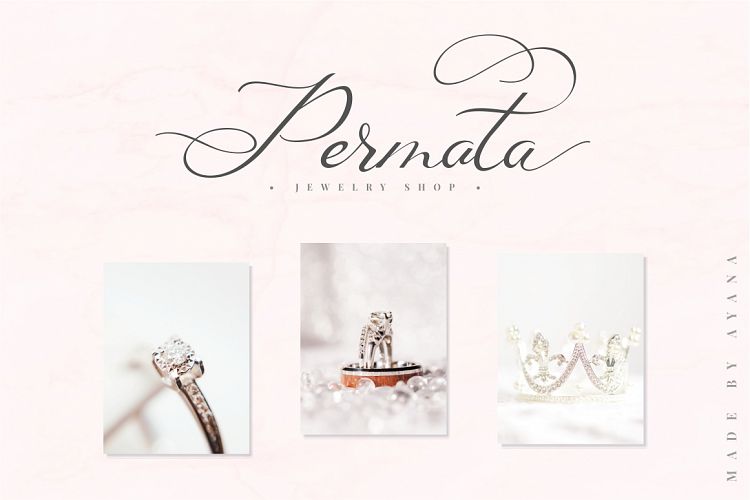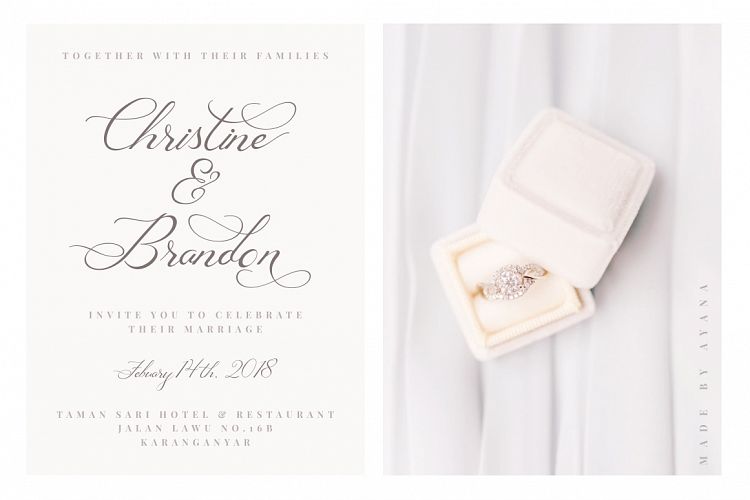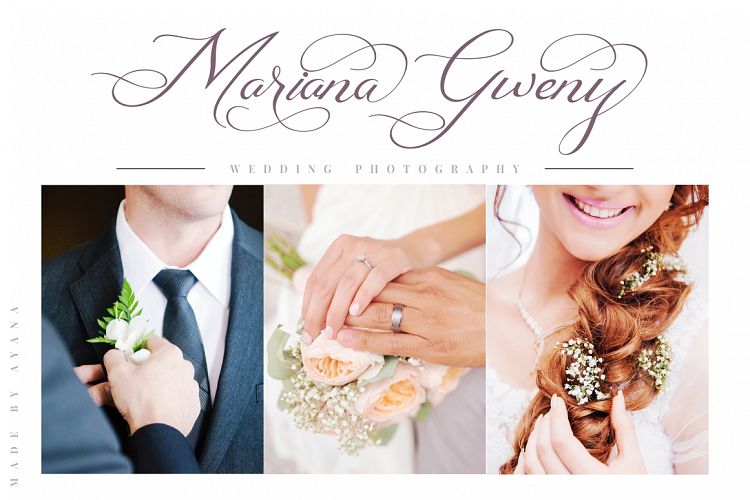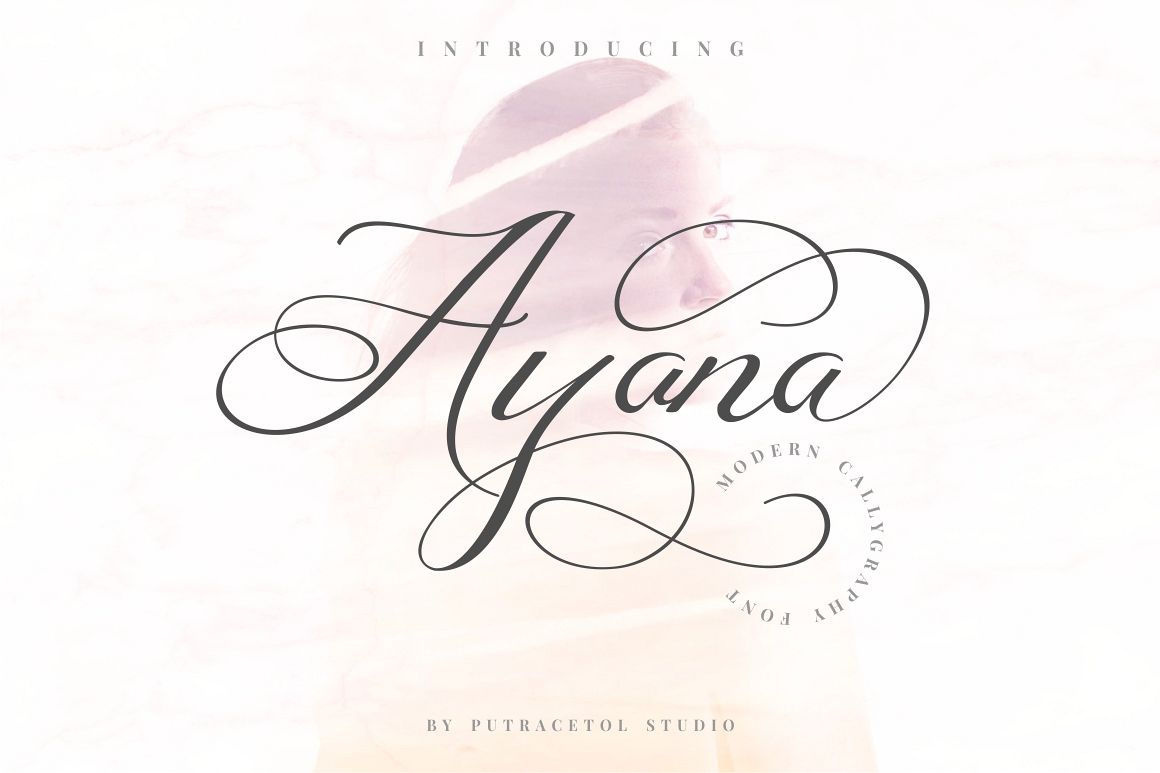
Ayana Font
Ayana
Ayana is a modern calligraphy font with luxurious touch. This font is feminime, elegant, messy ,modern and luxury.
Ayana perfect for branding, wedding invite and card, elegant logo, poster, packaging, stationery, website, and many more.
Come with open type feature with a lot of alternates, its help you to make great lettering.